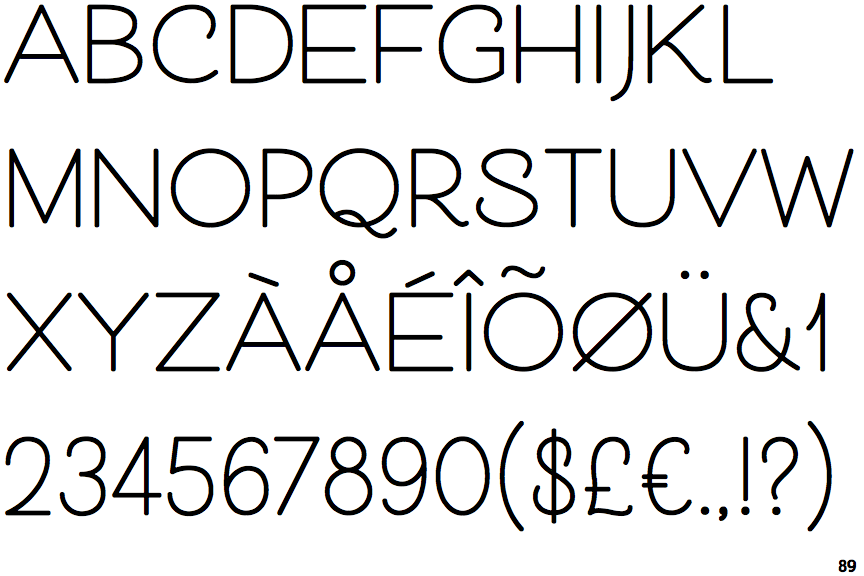
The Best Cosmopolitan Sans Font Free Download Ideas. Cosmopolitan is a monoline font family with script and sans versions that both work great together or alone. Web cosmo download fonts free dafonts , free download full, free download fonts free.
Cosmopolitan is a monoline font family with script and sans. Cosmopolitan is a monoline font family with script and sans versions that both work. Cosmopolitan is a monoline font family with script and sans versions that both work great together or alone.
It Comes With Five Weights And “Printed”.
It Comes With Five Weights And “Printed” Versions.
Web cosmopolitan is a monoline font family with script and sans versions that both work great together or alone. Web cosmopolitan sans bold font by fenotype features testdrive add to lightbox about: Download → now what is the cosmopolitan™ font?